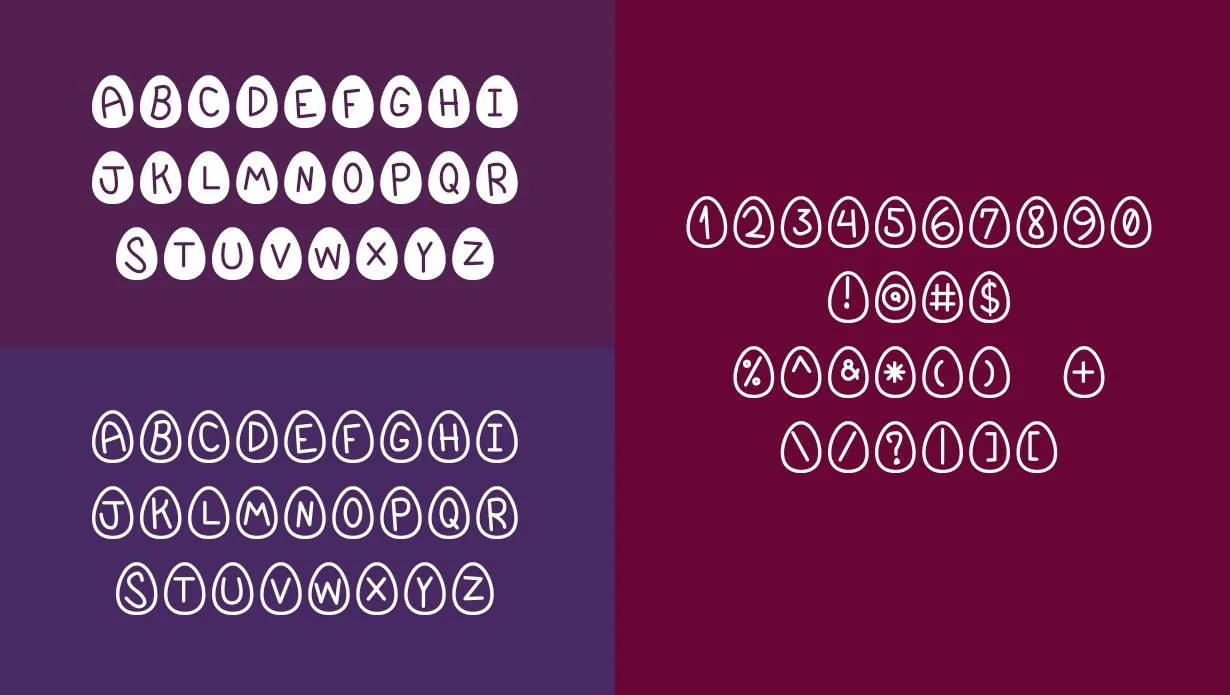
Easter Font is a decorative and playful typeface, often used in Easter-themed designs, greeting cards, and festive projects.
Easter Font Family
It captures the spirit of celebration and joy, making it a suitable choice for design work related to the Easter holiday.
| Name | Easter Font |
| Designer | Sealoung+Saiful Anwar |